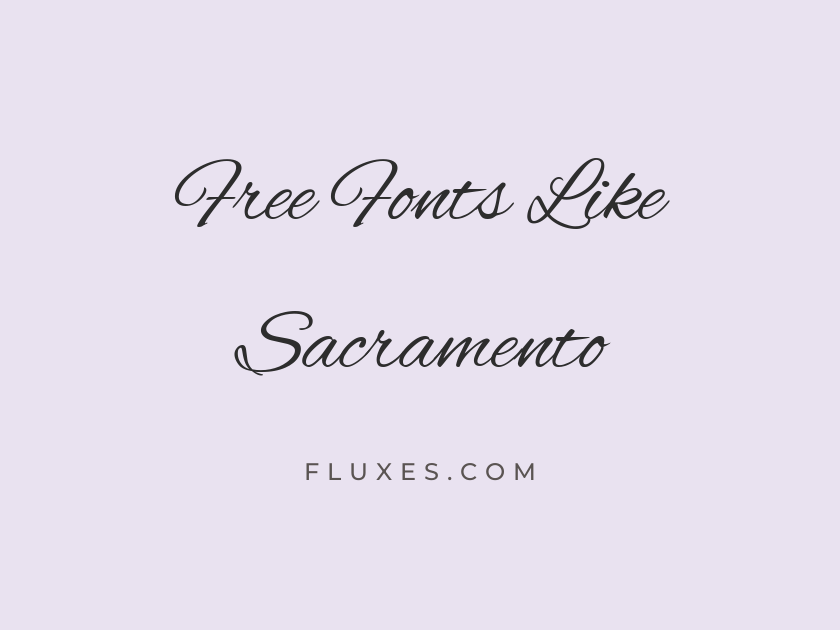
15 Best Free Fonts Similar to Sacramento
Sacramento built its popularity on a very particular kind of charm: a monoline script, casual but polished, with looping connections that feel handwritten without tipping into messy calligraphy. It became a default choice for wedding suites, logotypes, and social graphics precisely because it reads as personal and warm at almost any size. Finding free alternatives means looking for that same thin, consistent stroke weight and relaxed slant, since heavier brush scripts or formal copperplate styles miss the mark entirely.
The fonts gathered here share that monoline sensibility, though each brings its own rhythm, slant, or degree of flourish. Some are close cousins that could substitute for Sacramento in a pinch, while others offer a distinct mood for designers who want the same family of feeling without the exact same letterforms.
1. Alex Brush
Alex Brush is probably the nearest sibling Sacramento has on Google Fonts. The stroke weight stays admirably even, the loops are generous without being showy, and the baseline flows the way a fountain pen would if it never lifted off the page. It slots into the same wedding-invitation and packaging-label roles that made Sacramento famous.
2. Allura
Allura leans slightly more delicate than Sacramento, with narrower letterforms and tighter connections between characters. That makes it a strong pick for shorter phrases like names or monograms, though it can lose legibility if crammed into long paragraphs at small sizes.
3. Parisienne
There is a softness to Parisienne that comes from its rounded terminals and gentle, almost bouncy baseline. It feels a touch friendlier and less formal than Sacramento, which makes it a good match for greeting cards, invitations with a lighter tone, or branding that wants romance without stiffness.
4. Pinyon Script
Pinyon Script carries more old-world elegance than most fonts on this list, with dramatic ascenders and descenders that swoop well beyond the x-height. Designers use it for formal invitations and certificate lettering where a little theatrical flourish is welcome.
5. Great Vibes
Great Vibes is a longtime favorite for a reason: it is confident, legible even at modest sizes, and slants just enough to feel lively without looking rushed. It pairs naturally with a restrained serif or sans body font, letting the script carry all the personality in a header while the body text stays quiet and readable.
6. Dancing Script
Where Sacramento stays narrow and composed, Dancing Script bounces. Its rounded, slightly playful letterforms make it a favorite for casual branding, menus, and social posts that want warmth over refinement. The bold weight in particular holds up well on buttons and short headlines.
7. Satisfy
Satisfy reads like a quick, confident signature rather than formal calligraphy. It is compact, has almost no flourish, and stays highly legible even at small sizes, which makes it a practical choice for logos or UI elements where more ornate scripts would blur.
8. Kristi
Kristi is thinner and more delicate than Sacramento, closer to a fine-tipped pen than a brush. It shines in short, elegant applications such as signatures or accent text, but its light strokes can disappear at small sizes or in low-contrast print, so reserve it for larger display use.
9. Mrs Saint Delafield
This one has a looser, more spontaneous feel, as if it were dashed off in a single unbroken motion. The connected, overlapping strokes give it real character for wedding stationery and monograms, though its irregular rhythm means it works best in short bursts rather than full sentences.
10. Meddon
Meddon keeps things simple and even, with a gentle rightward slant and minimal flourish. It is a dependable, easy-to-read script for anyone who wants Sacramento’s calm confidence without quite as much decorative looping.
11. Marck Script
Marck Script feels a little more upright and grounded than most scripts here, which gives it unexpected versatility. It reads well in body-length text, not just headlines, making it a useful option for quote graphics or longer handwritten-style captions.
12. Norican
Norican has a distinctive, slightly retro character, with a moderate slant and rounded terminals that feel more casual sign-painting than formal script. It suits vintage-inspired branding, coffee packaging, or event graphics looking for personality without delicacy.
13. Italianno
Elegant invitations for elegant occasions
Italianno pushes further into ornate territory than Sacramento, with tall, sweeping ascenders and a formal, old-fashioned air. It is best reserved for large display text, such as a monogram or a single elegant word on an invitation cover.
14. Rouge Script
Little notes of love and joy
Rouge Script sits comfortably between casual and refined, with a slight forward lean and clean, uncluttered letterforms. It handles both display headlines and short lines of body text gracefully, which gives it more flexibility than some flashier scripts on this list.
15. WindSong
Softly written, warmly remembered always
WindSong has an airy, open feel thanks to its wider letter spacing and gentle curves. It is a newer addition to Google Fonts but already feels at home alongside Sacramento in the same category of soft, monoline scripts suited to stationery and lifestyle branding.
• Styles: 2 weights (Regular, Medium)
Monoline scripts like these work best paired with a plain, confident companion. A clean serif such as EB Garamond or a simple sans like Montserrat lets the script stay the star.
Keep script fonts for headlines, names, or short phrases rather than long paragraphs. Their connected letterforms and thin strokes can blur at small sizes or low resolutions.
Always test your chosen script at the actual size it will appear, especially on mobile screens. What looks graceful in a large mockup can turn illegible in a footer or button label.